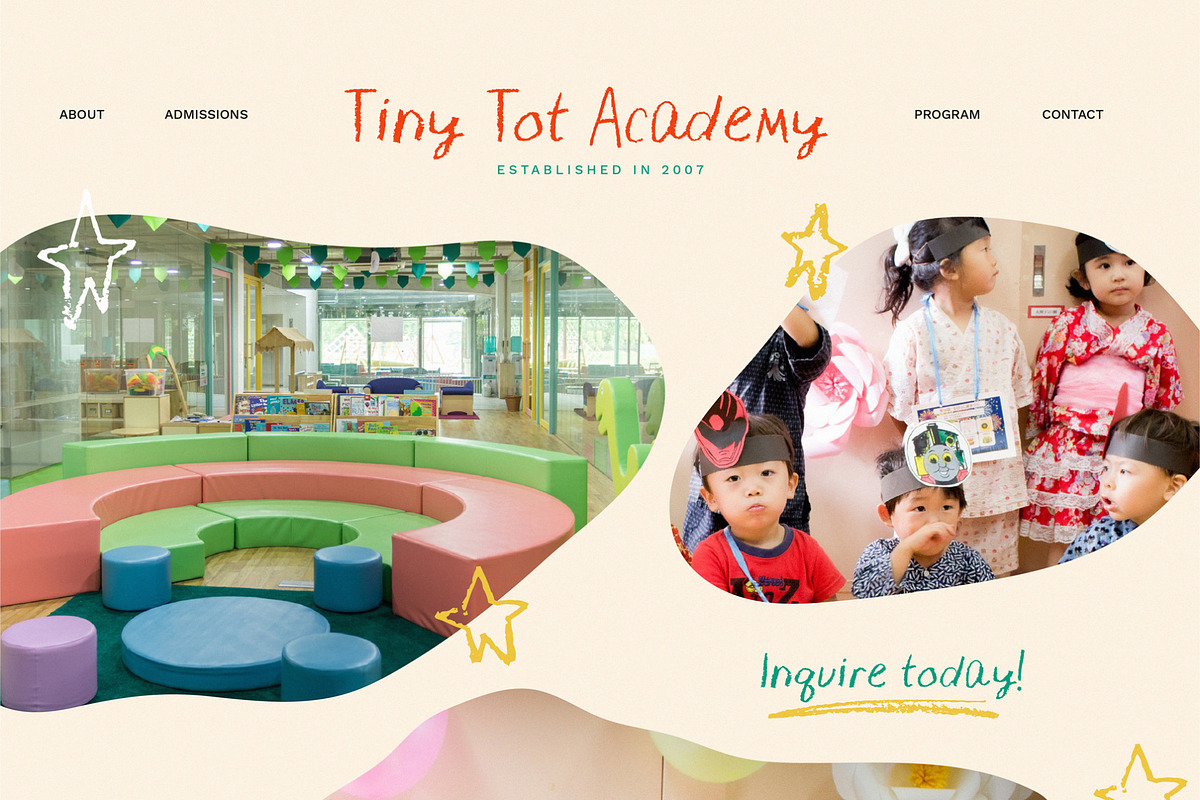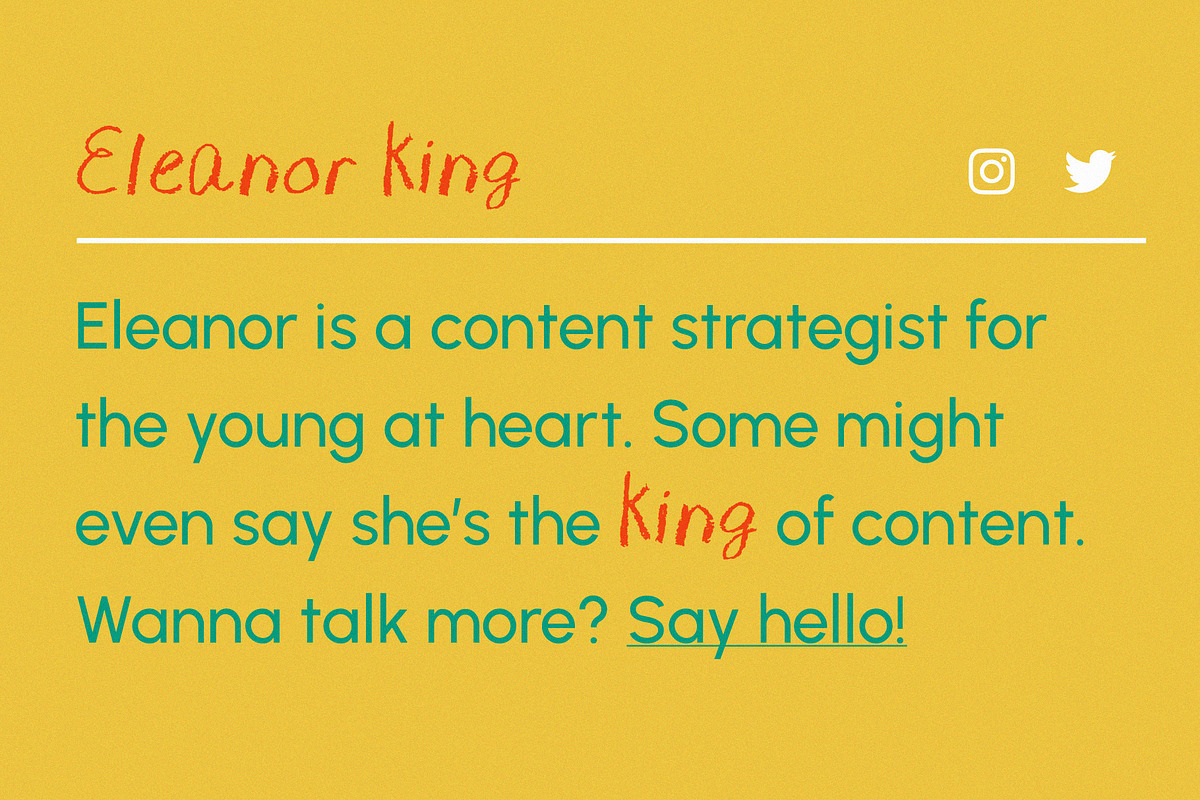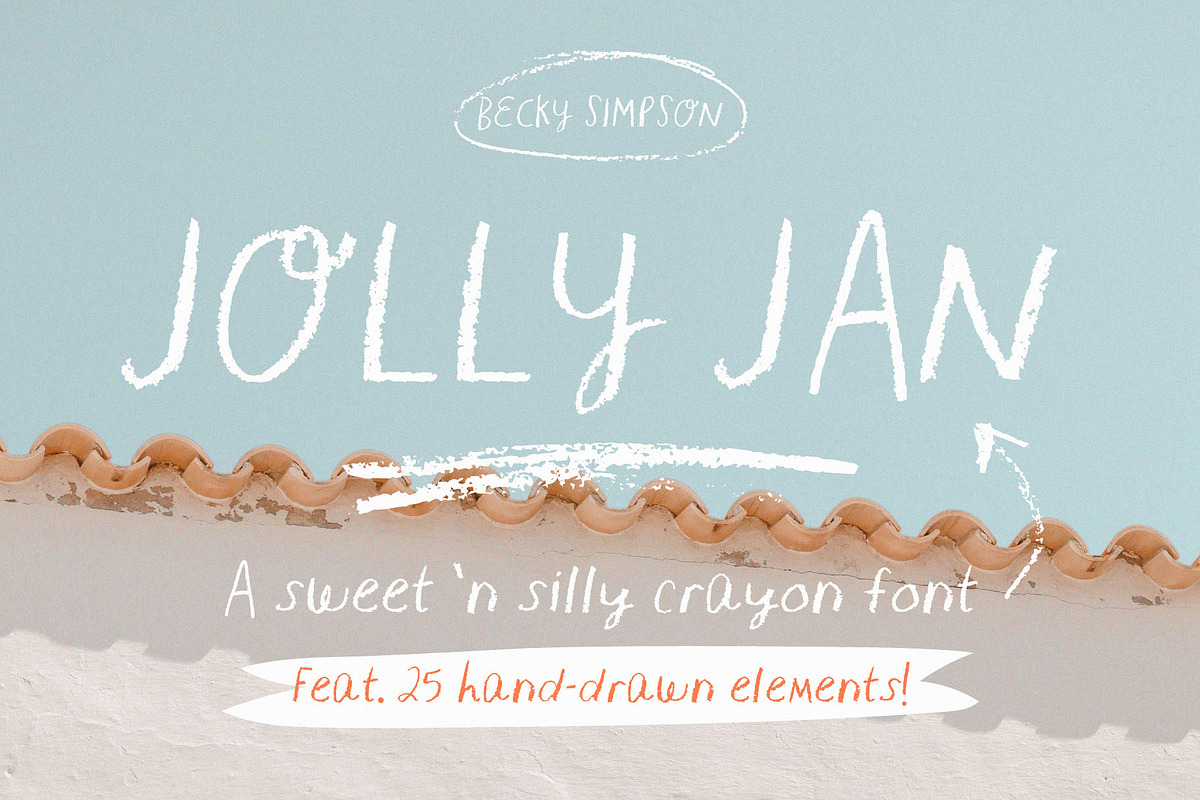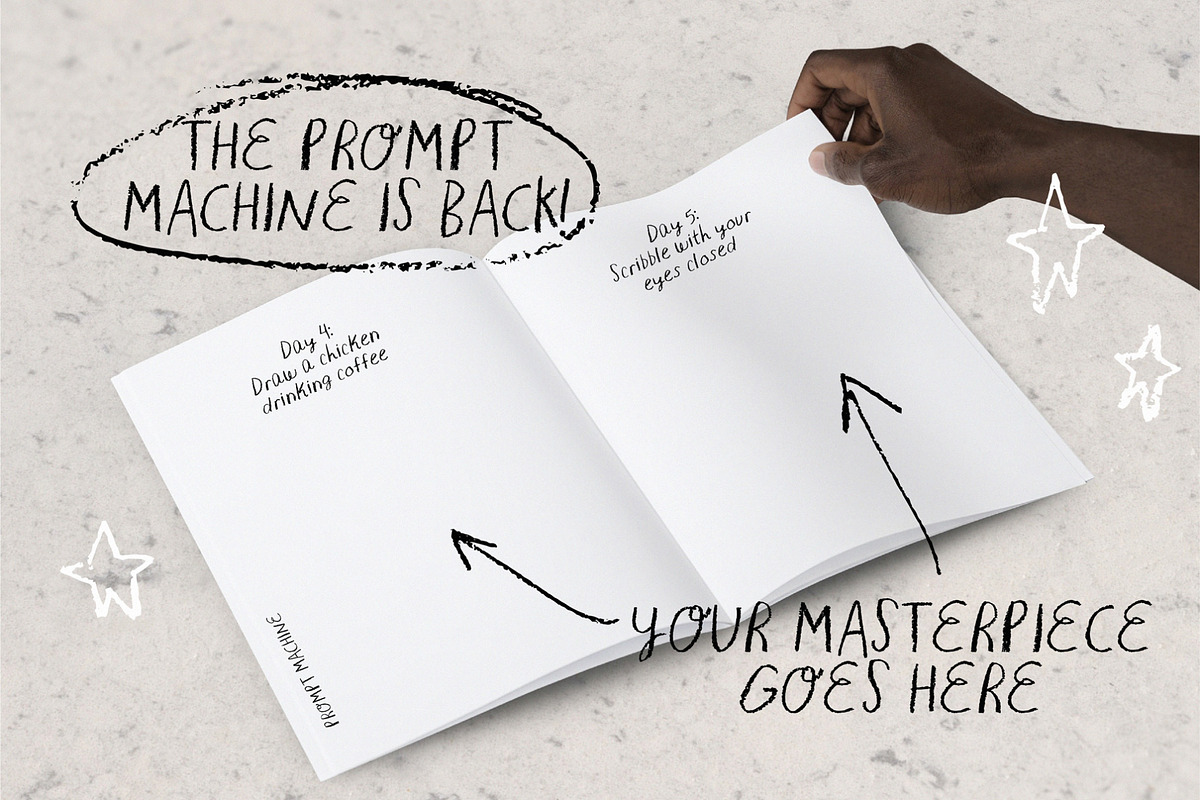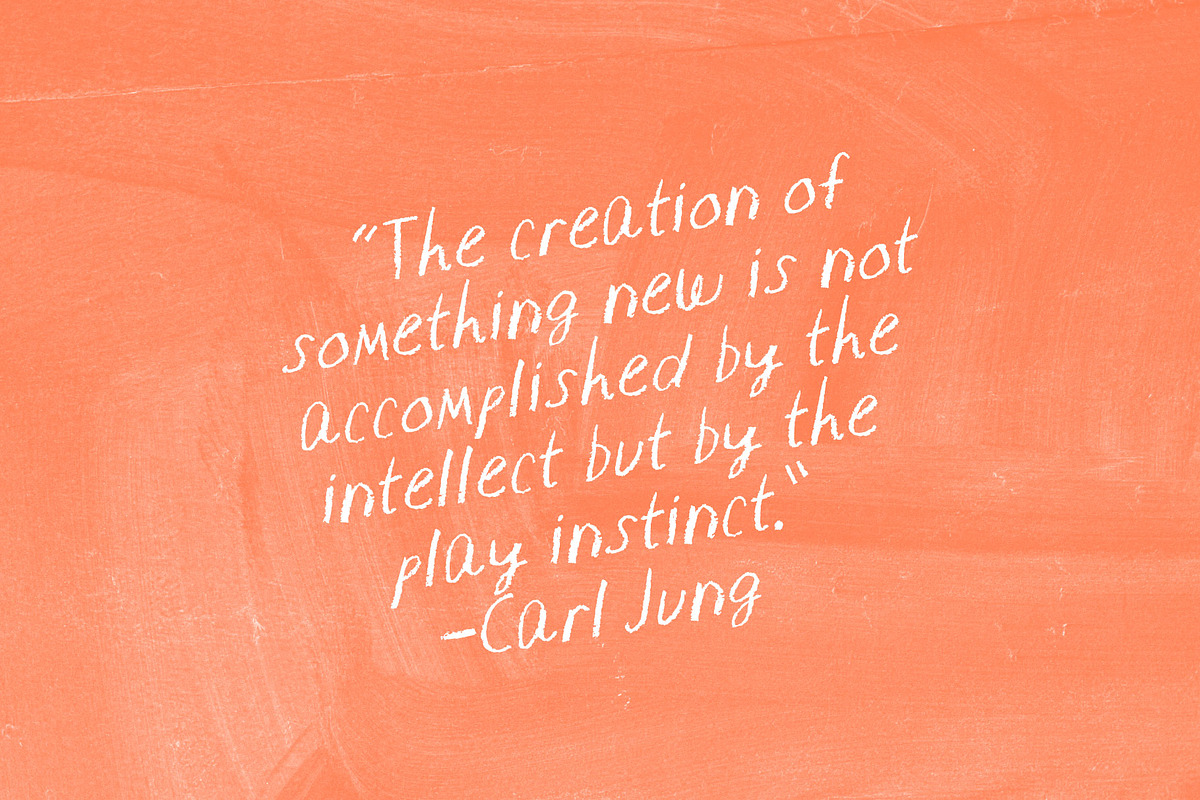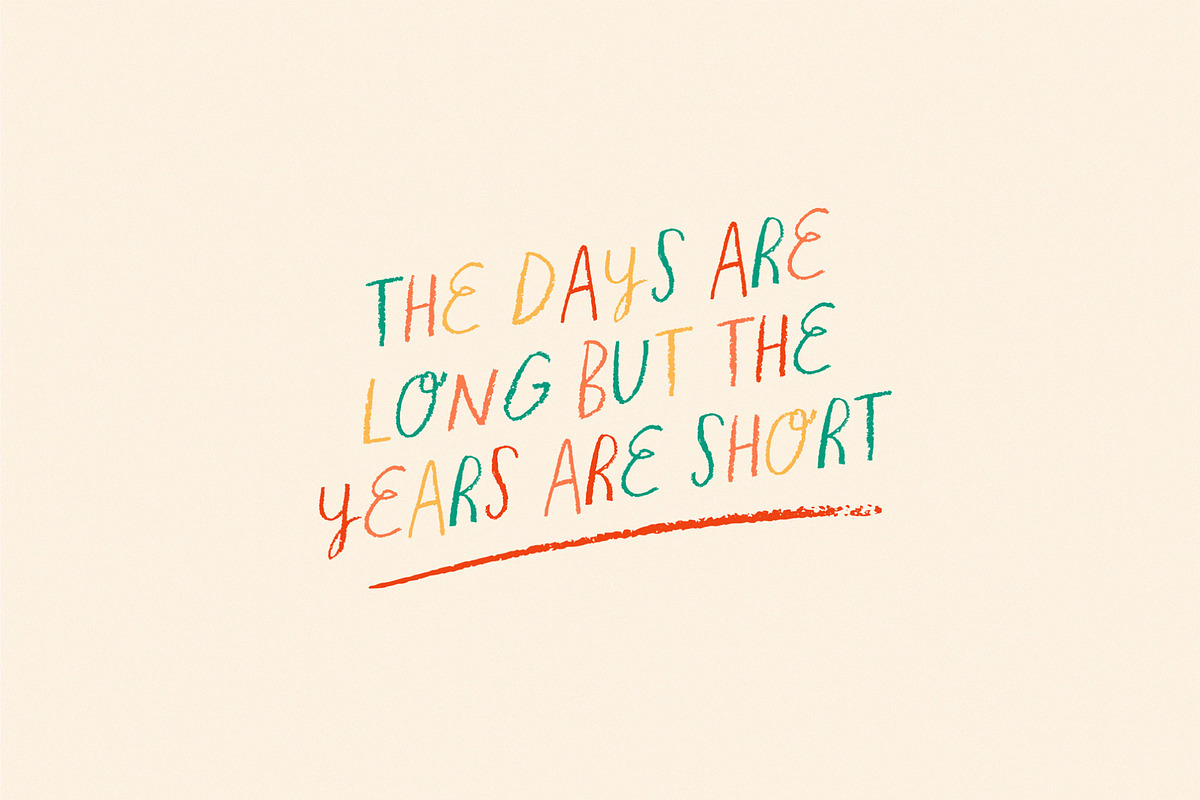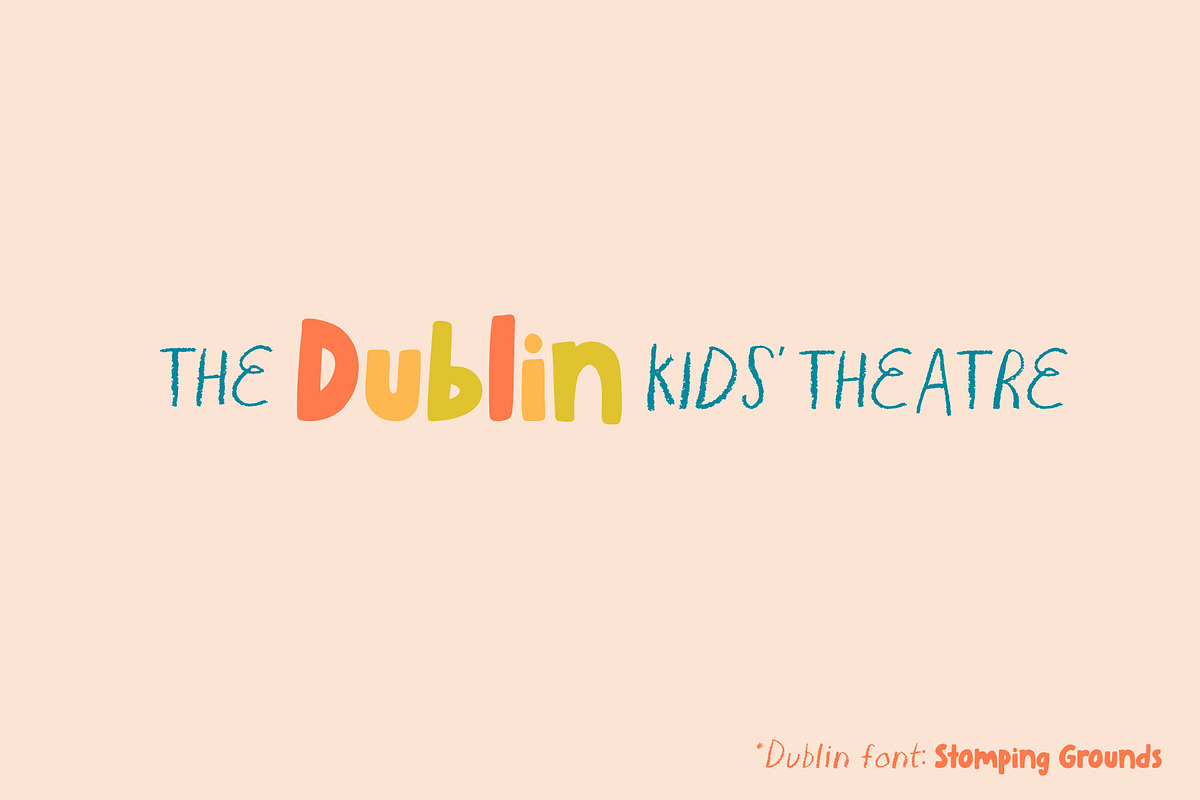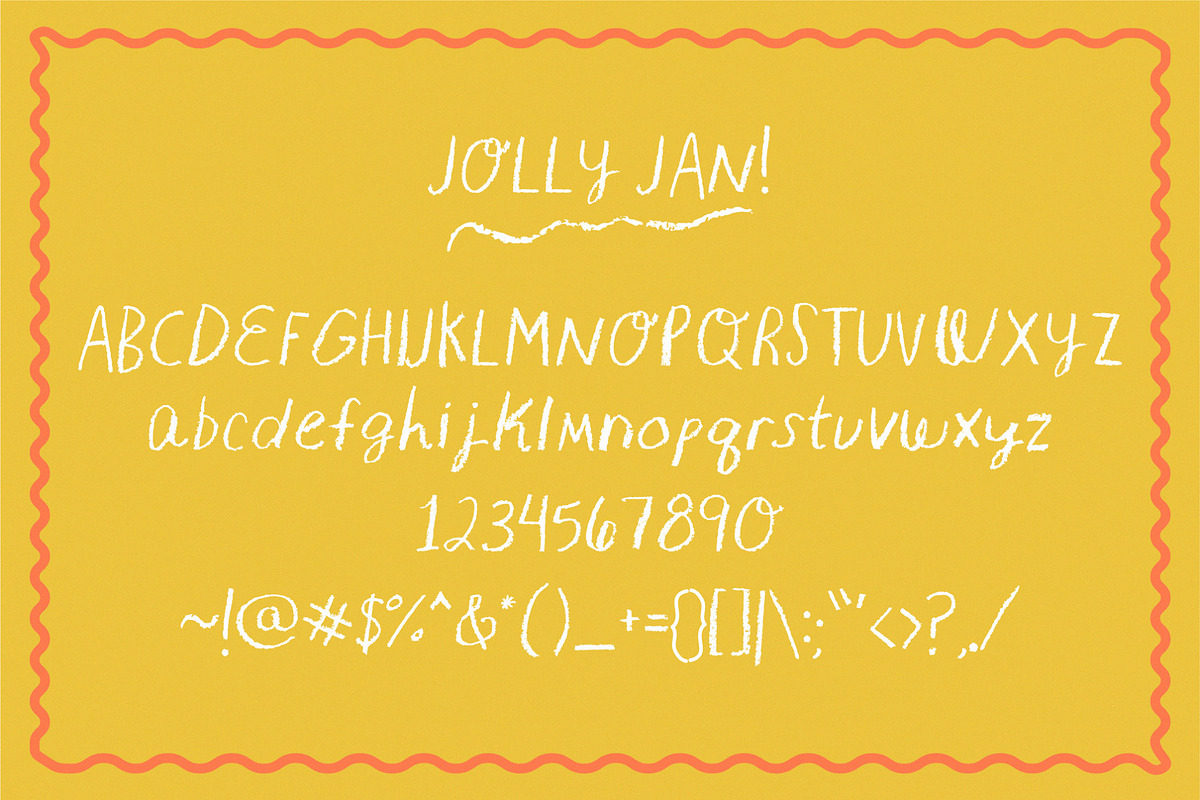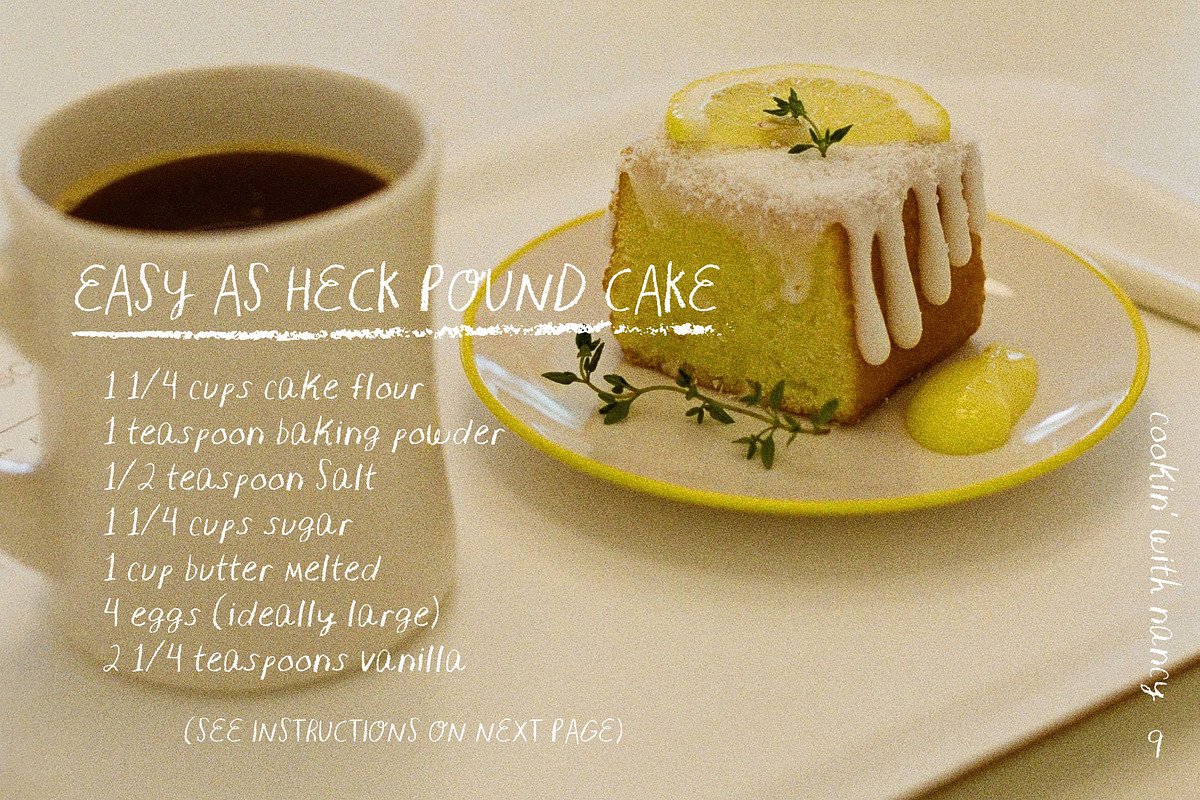
Jolly Jan • Crayon Handlettered Font
Jolly Jan is the perfect crayon (or chalk) handwritten font for all your playful projects! It's an awesome font for book covers, digital scrapbooking, Instagram quotes, editorial shoutouts, products (apparel, greeting cards, etc.), logos and more! Between its nostalgic texture and quirky letterforms, this font is a winner for kid-related projects, or grown-ups who don't take themselves too seriously.